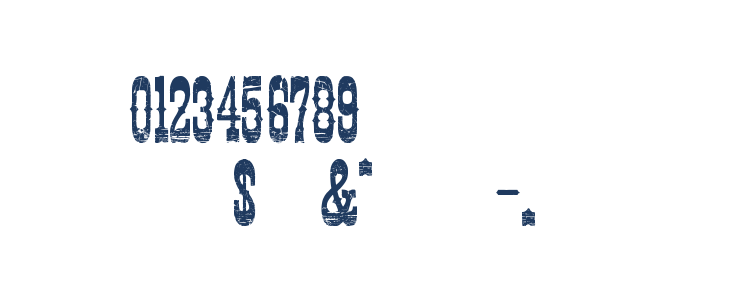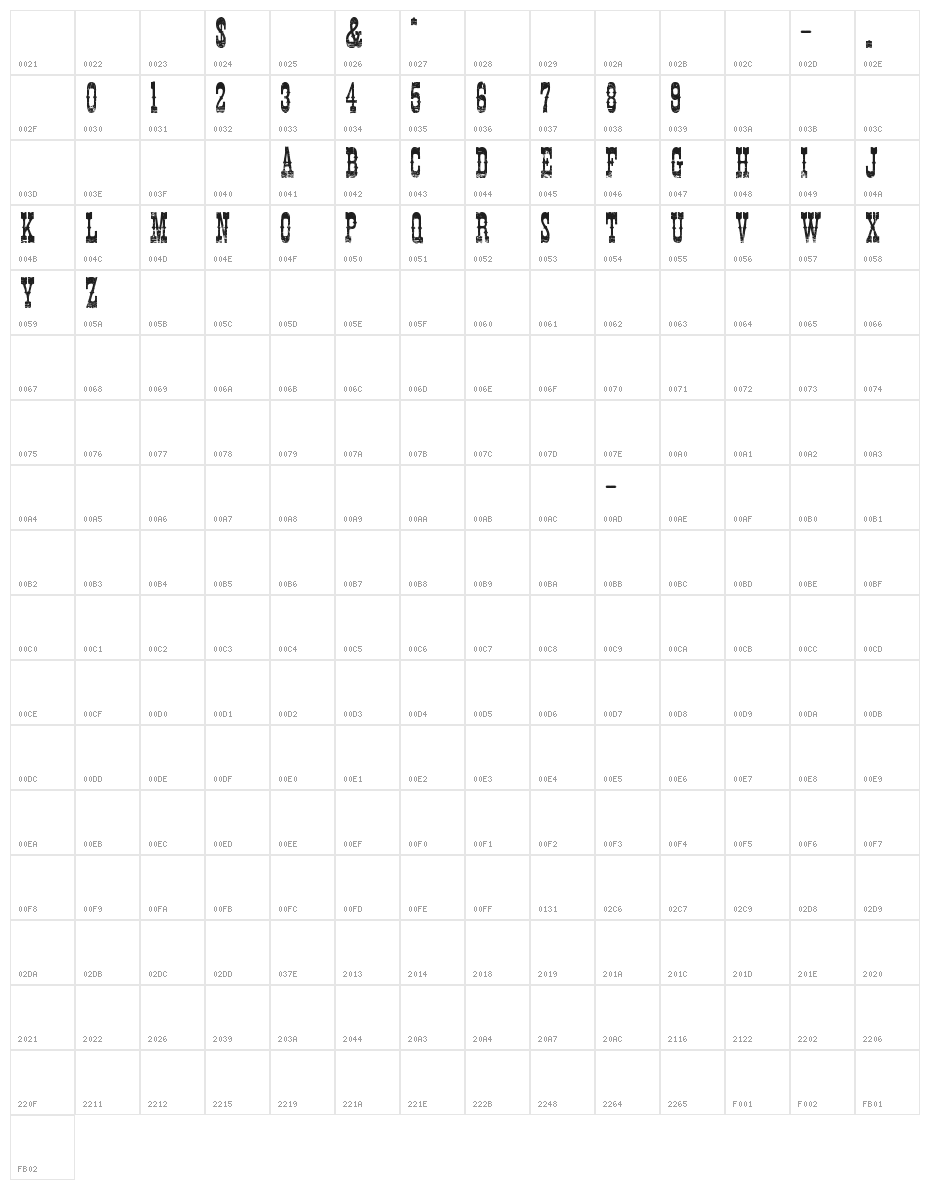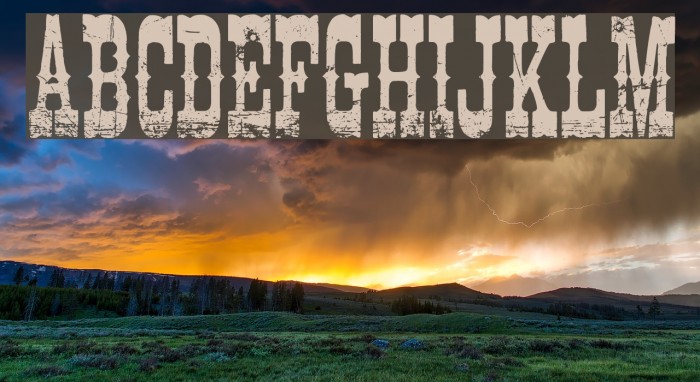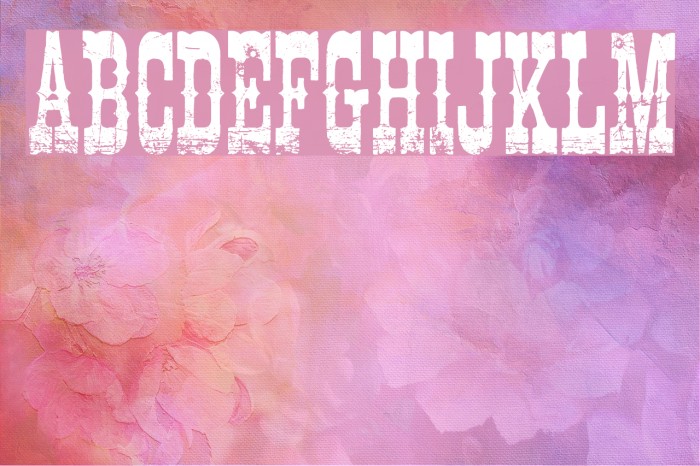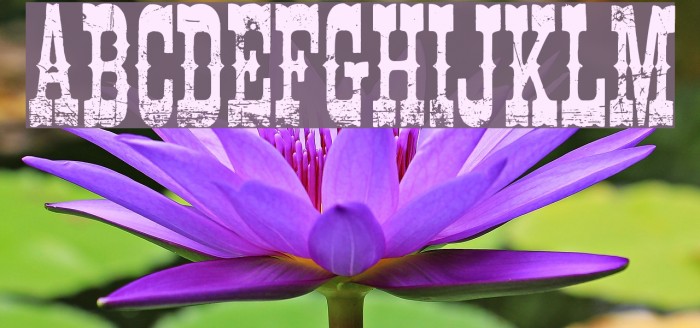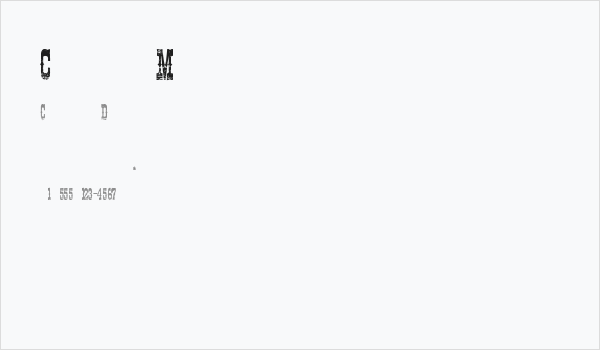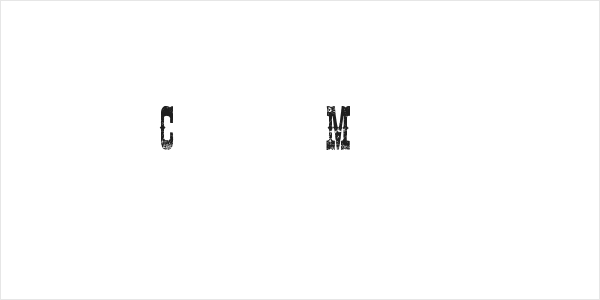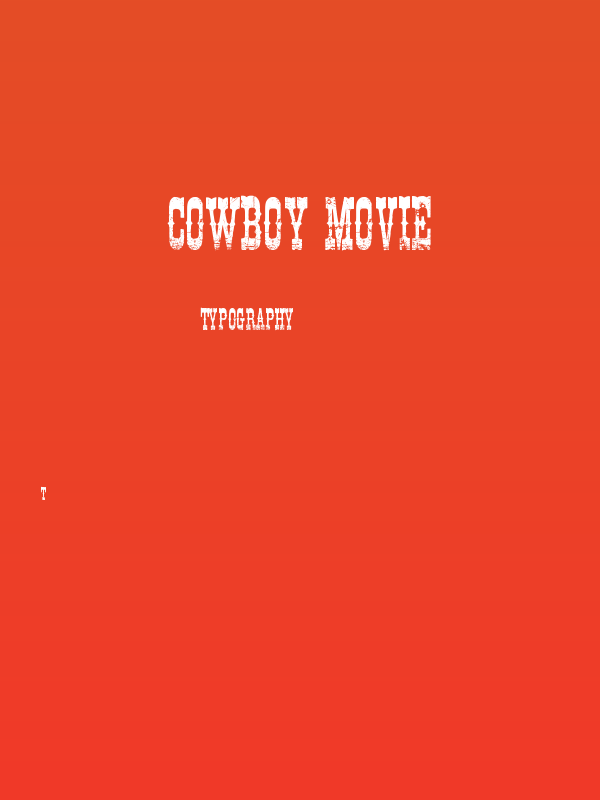
Cowboy Movie Font
Cowboy Movie Description
This font embodies a rugged, distressed style reminiscent of vintage Western aesthetics. The characters are bold and heavily textured, giving the appearance of wear and tear, as if they have been weathered by time. The uppercase letters are particularly striking, with a strong presence that commands attention. The numbers and special characters maintain this distressed look, ensuring consistency across all glyphs. This font is ideal for projects that aim to evoke a sense of nostalgia or ruggedness, such as posters, signage, or themed event materials.
Overall StyleVintage
Proposed ProjectsPerfect for Western-themed posters, vintage signage, and rustic branding projects.